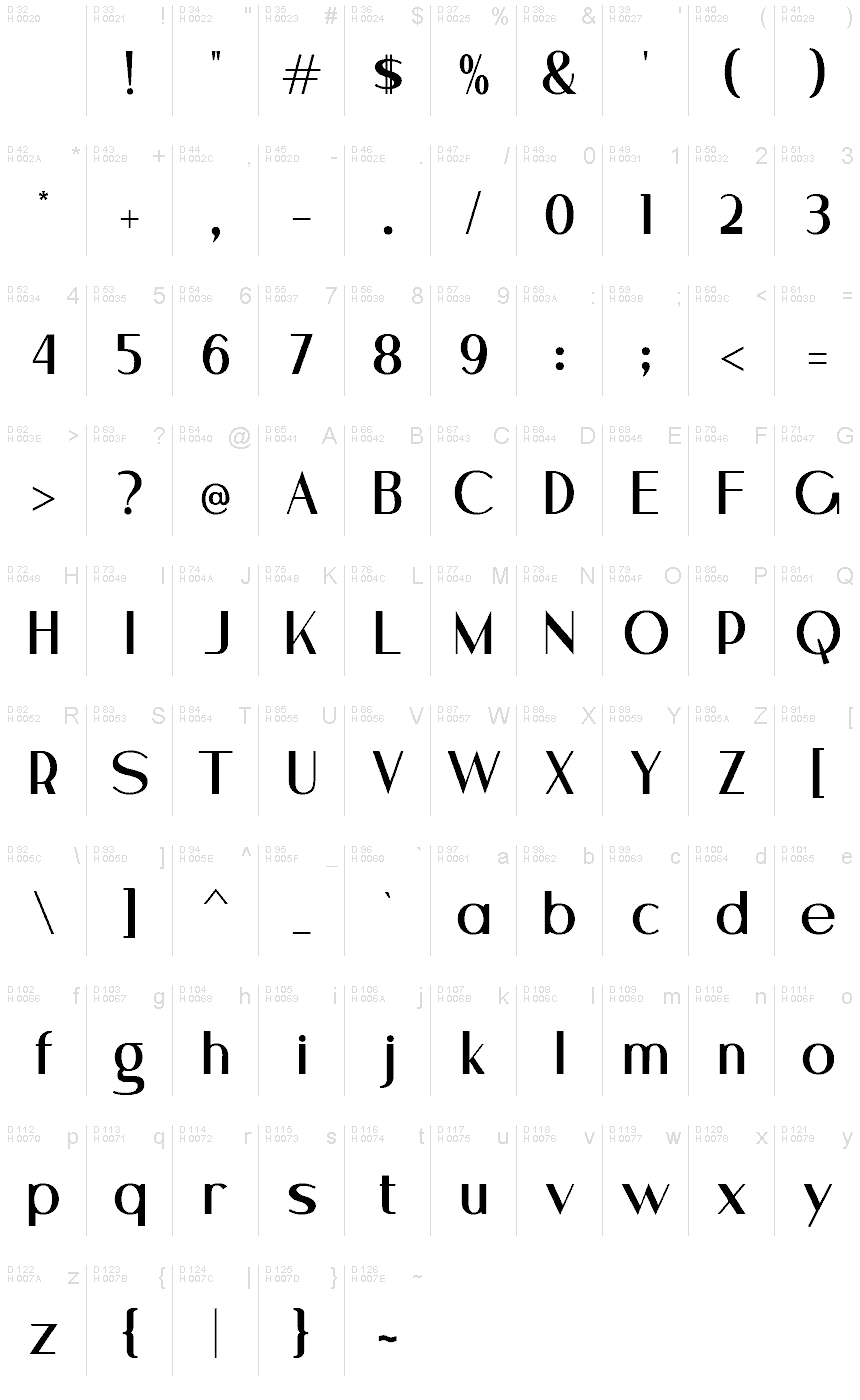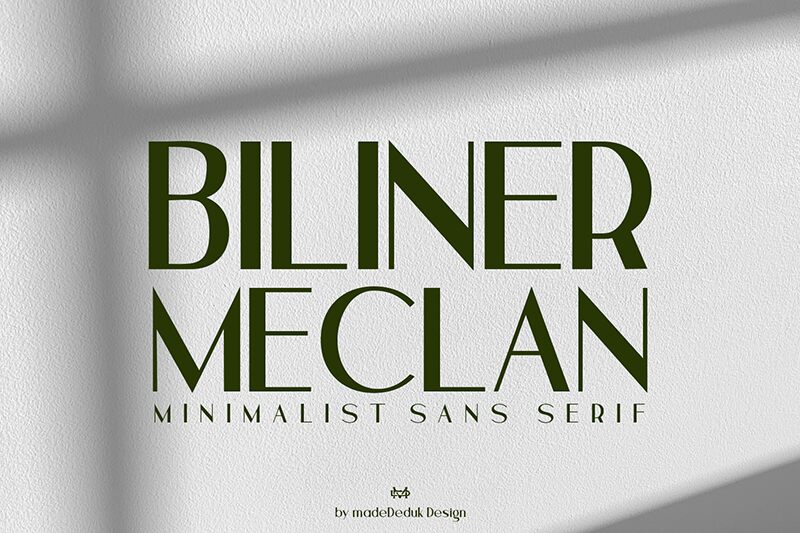
Biliner Meclan Demo
Biliner Meclan font is a contemporary sans serif with a modernist flair from the designer madeDeduk. Its elegant style has been shaped by clean lines and geometric influence making it sophisticated and worth having. It has a professional appearance that makes it one of the top choices to use in projects that demand quality results.
The free font can be implemented across a wide range of applications which include headlines, posters, flyers, magazine covers, newspapers, ebook covers, video game graphics or UI designs for both apps and websites. Other notable uses include editorials and branding ideas such as creating logos and slogan texts.